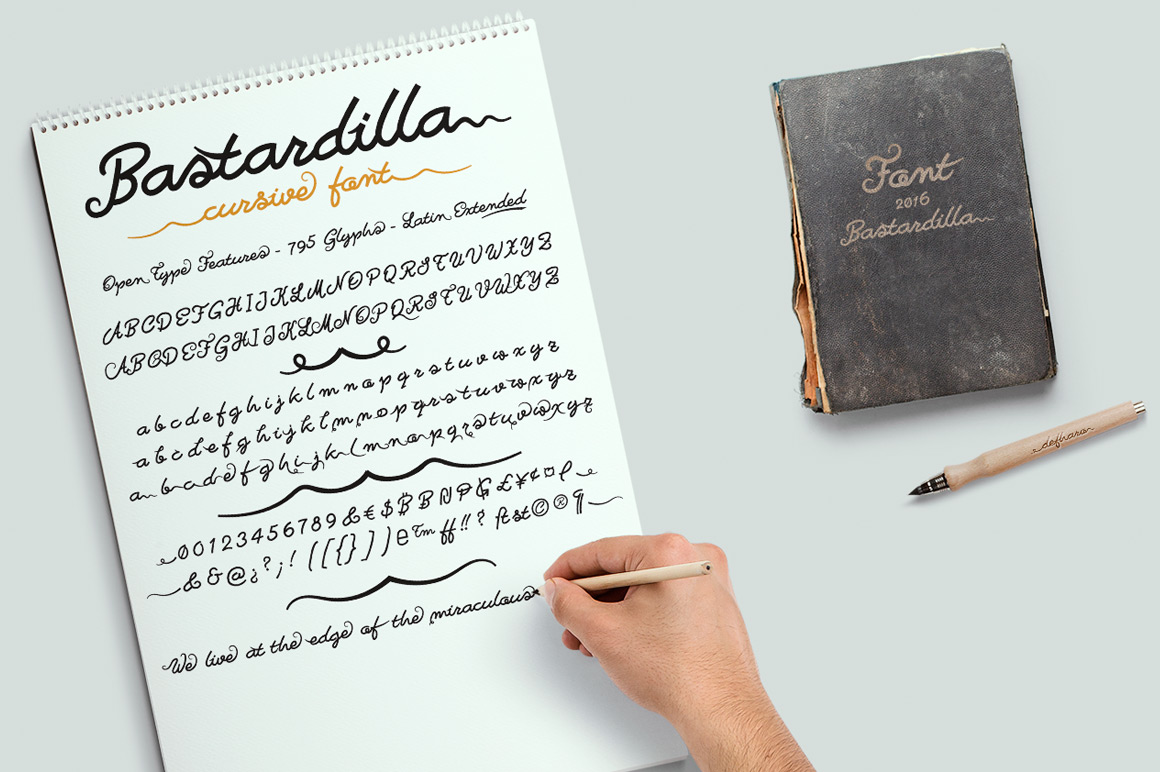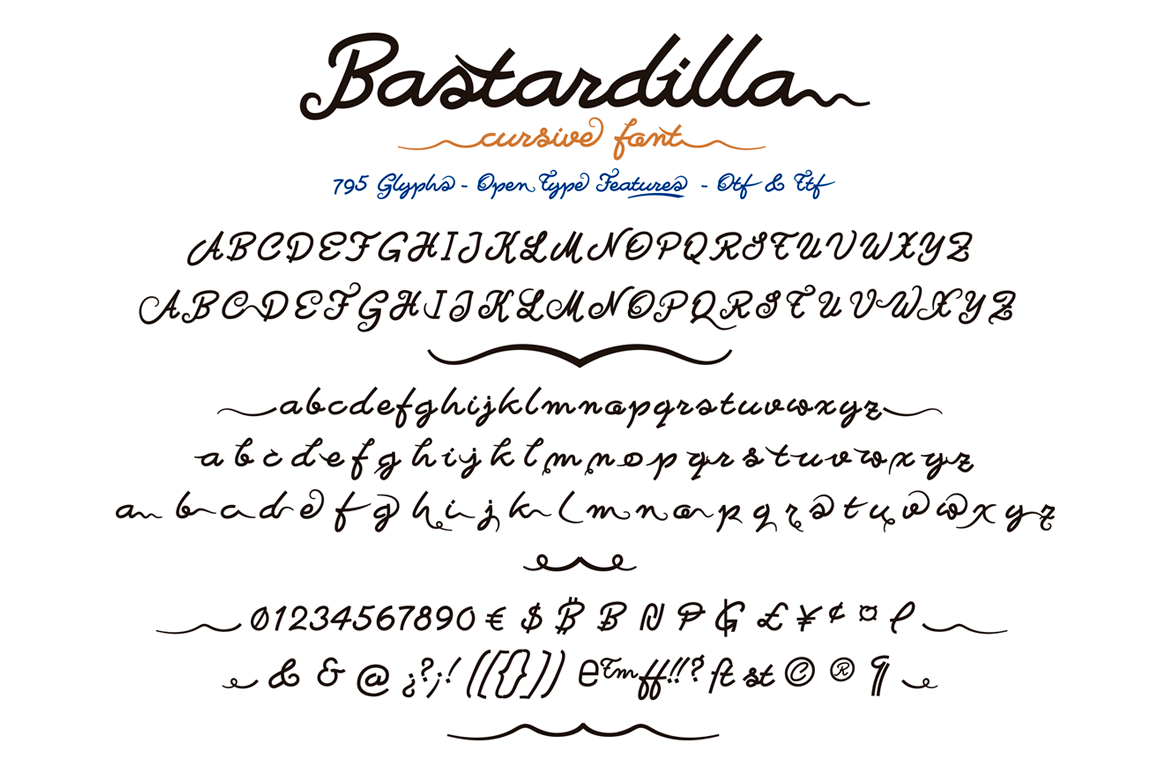
Bastardilla Font
About Bastardilla Font
The Bastardilla font by deFharo is a smooth concatenated handwritten font. It features 2 full sets of Capital letters and 3 sets of lowercase letters (including one with terminal letters (swashes) and one for initial letters).